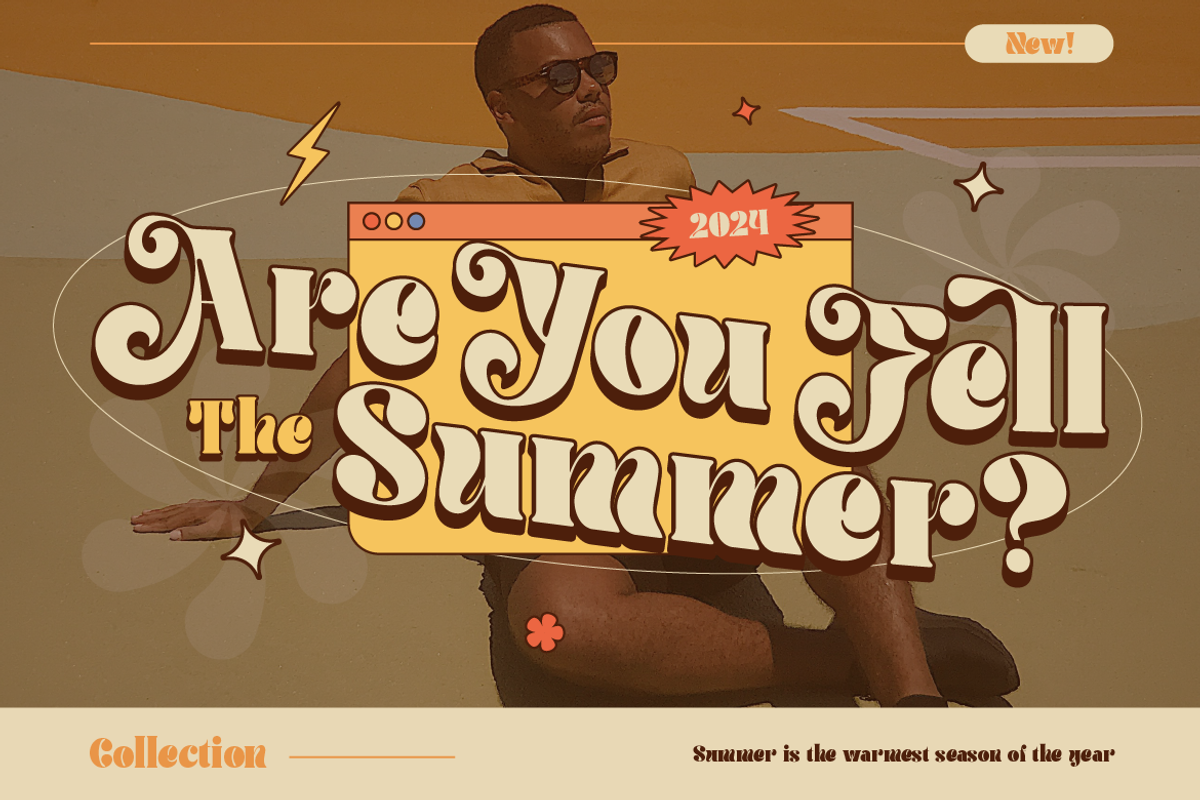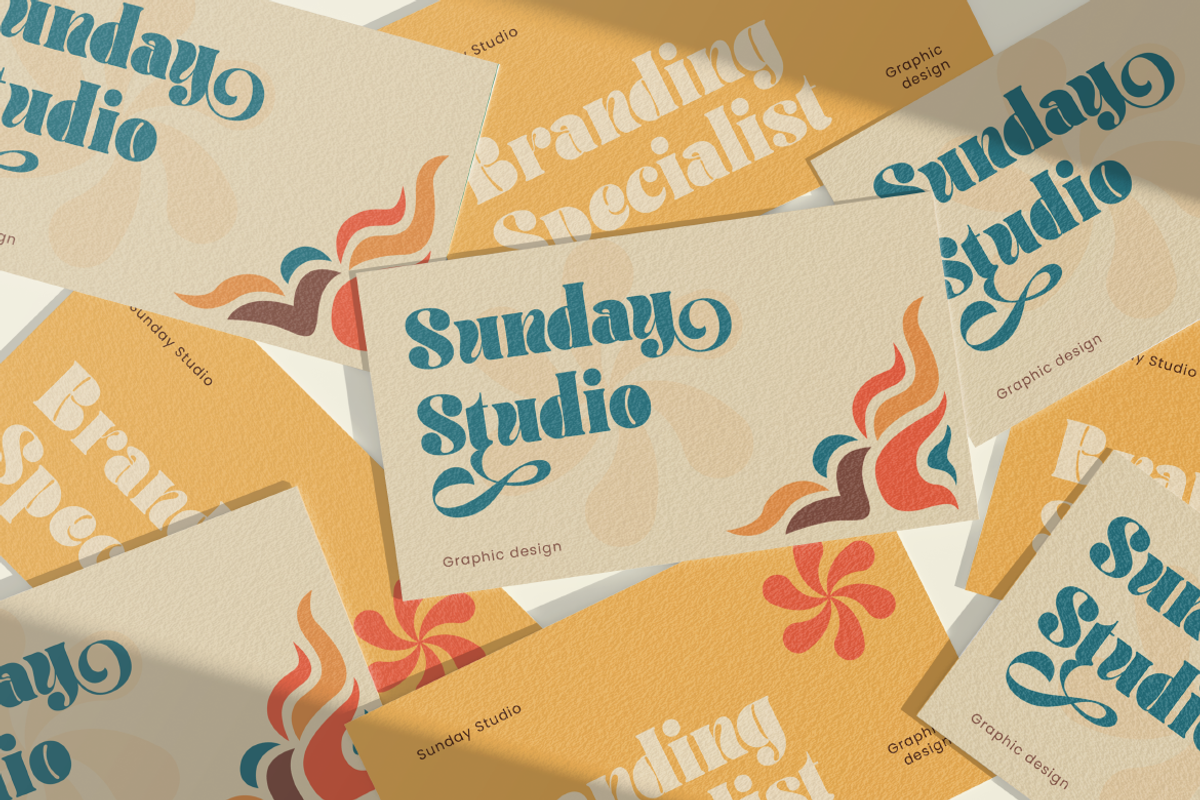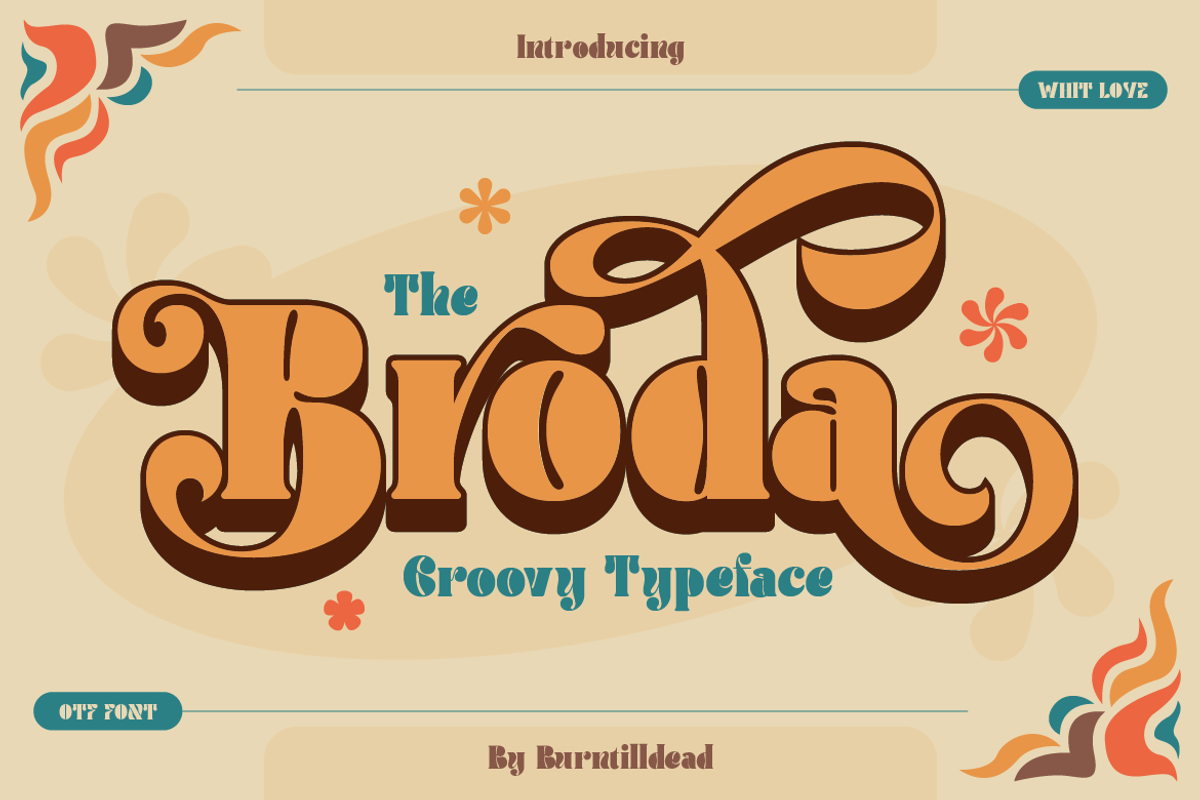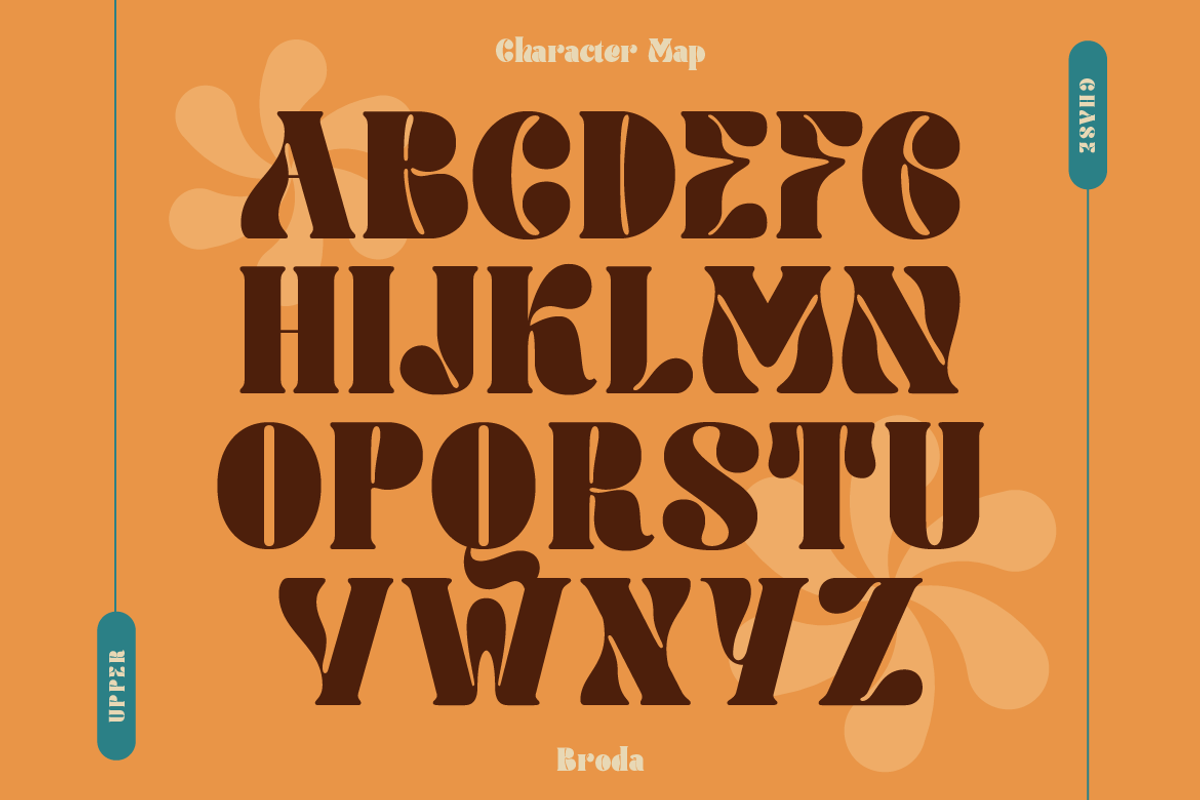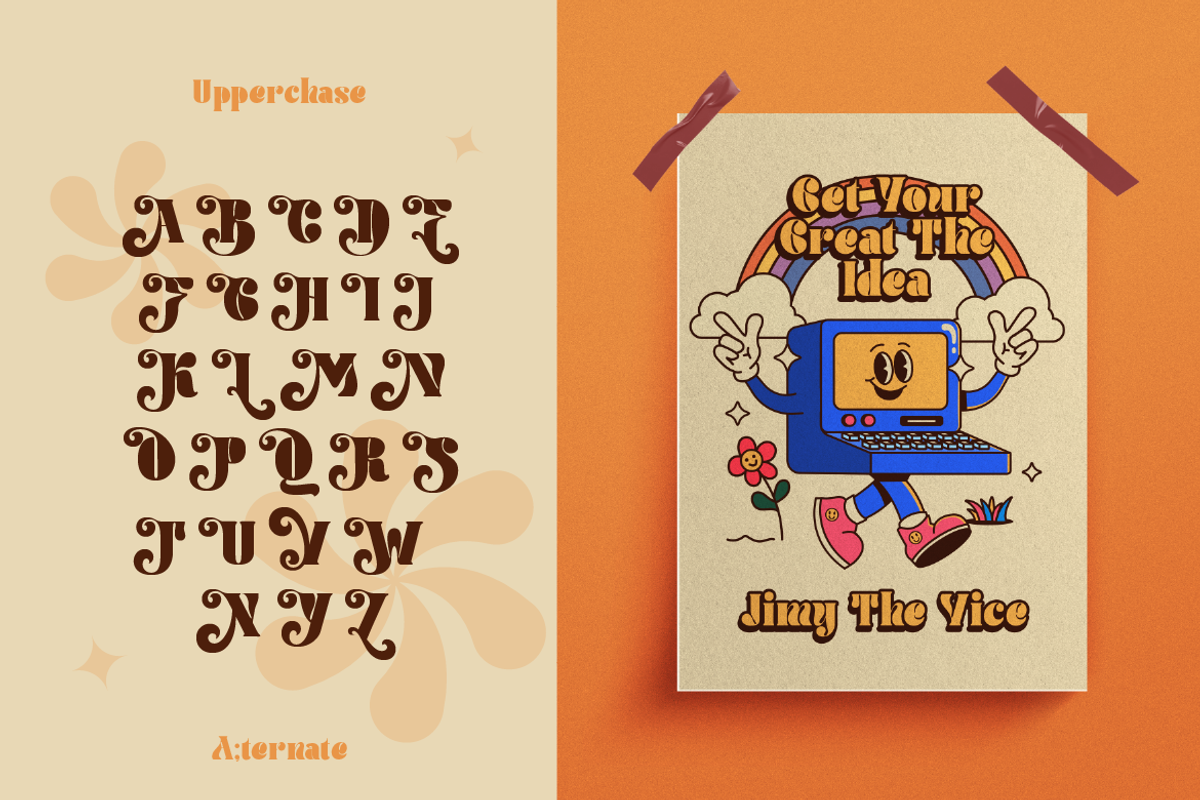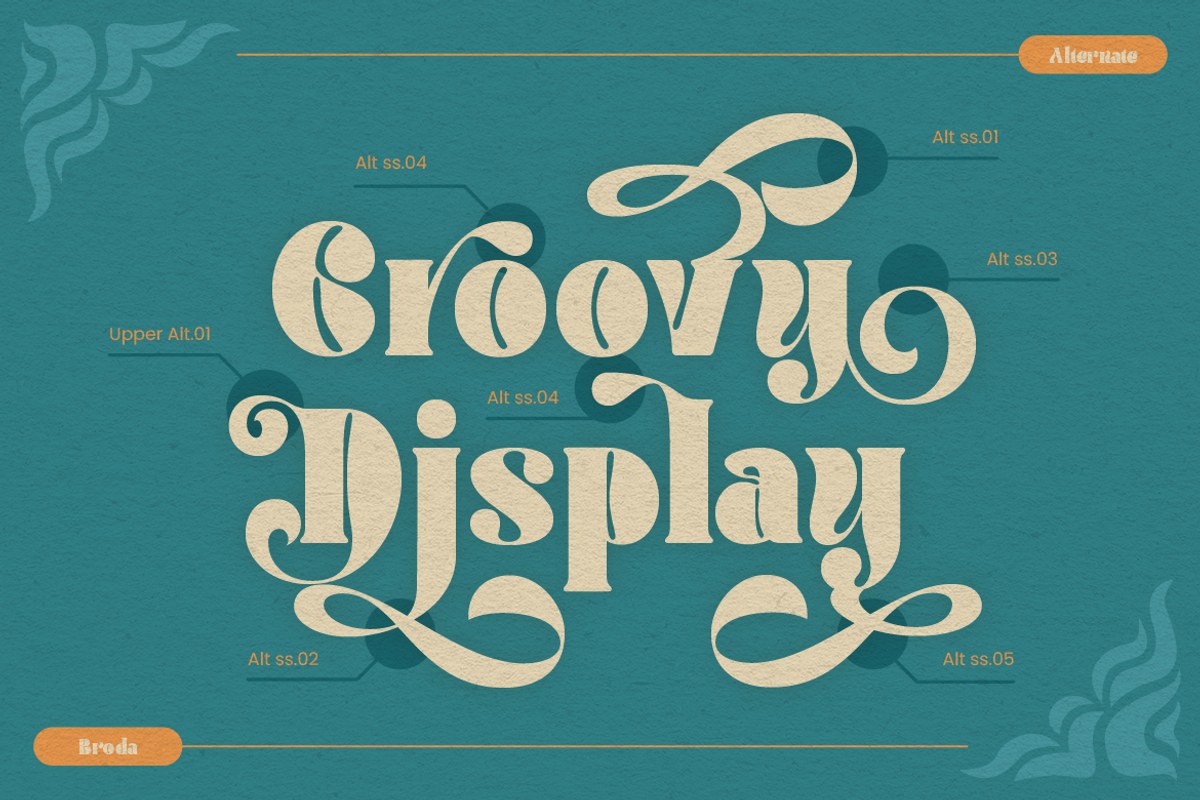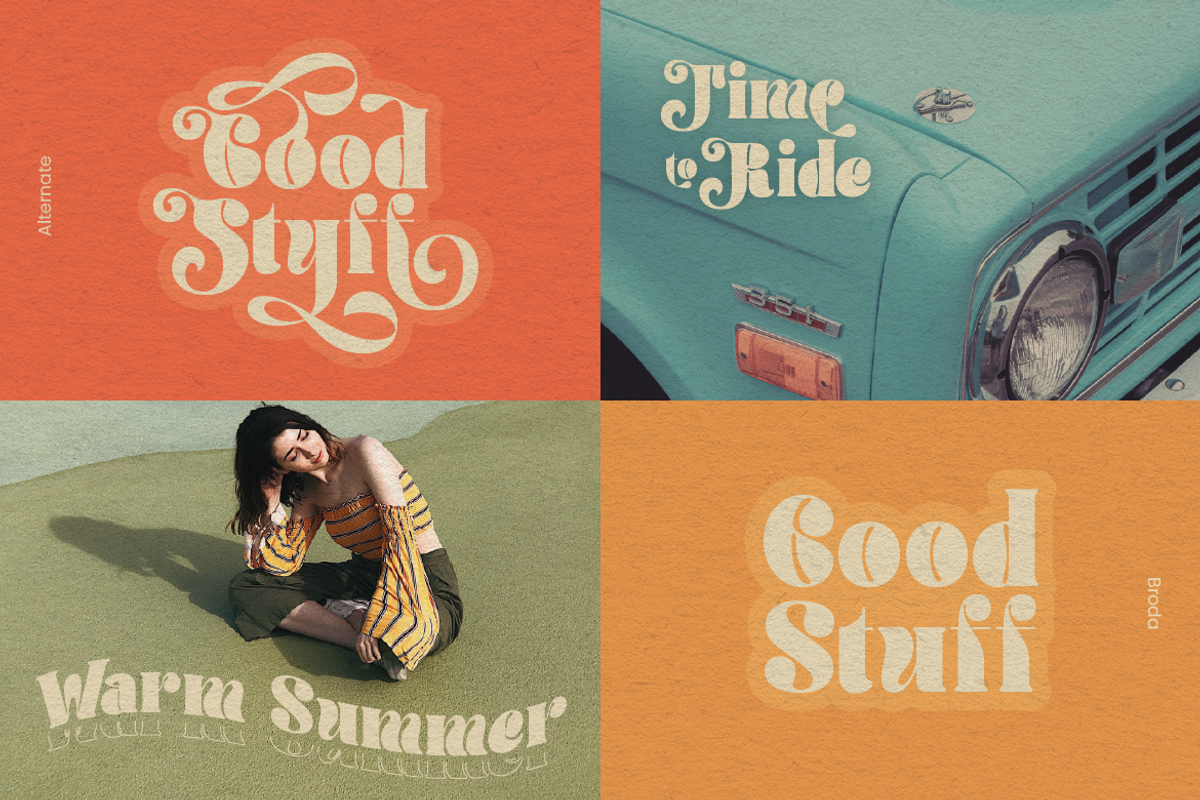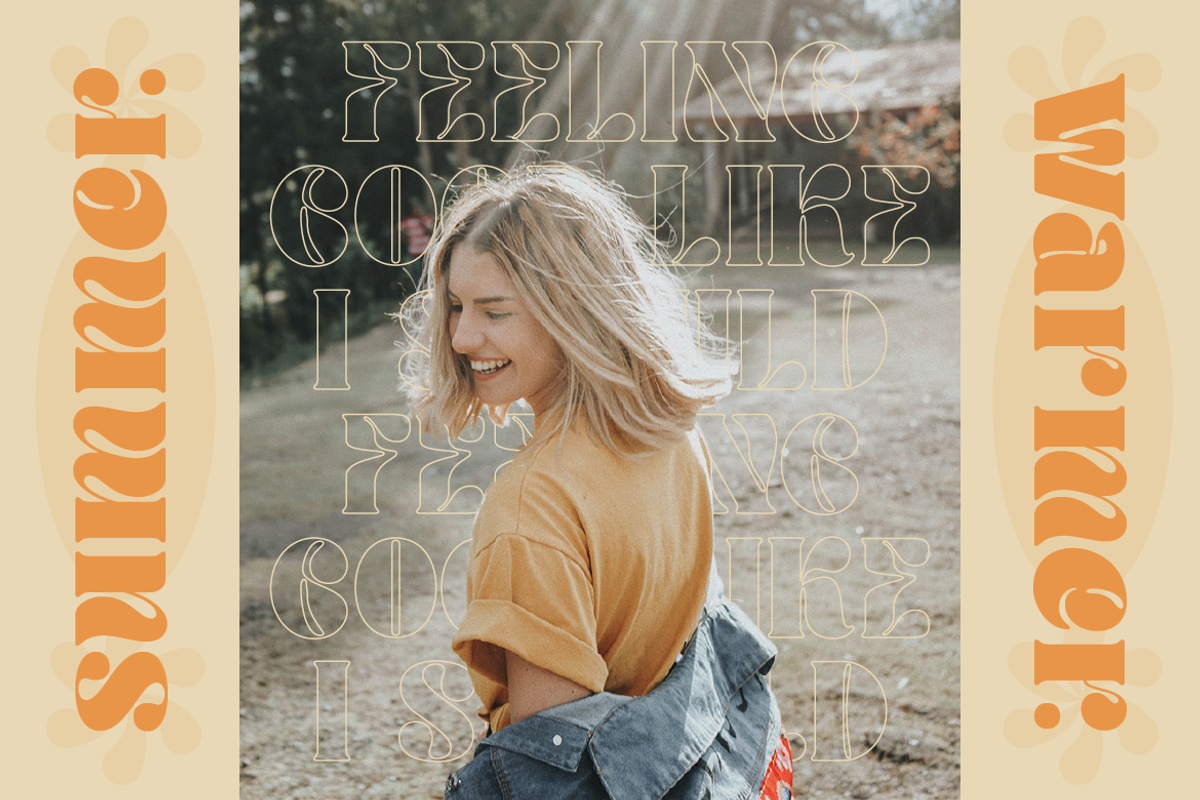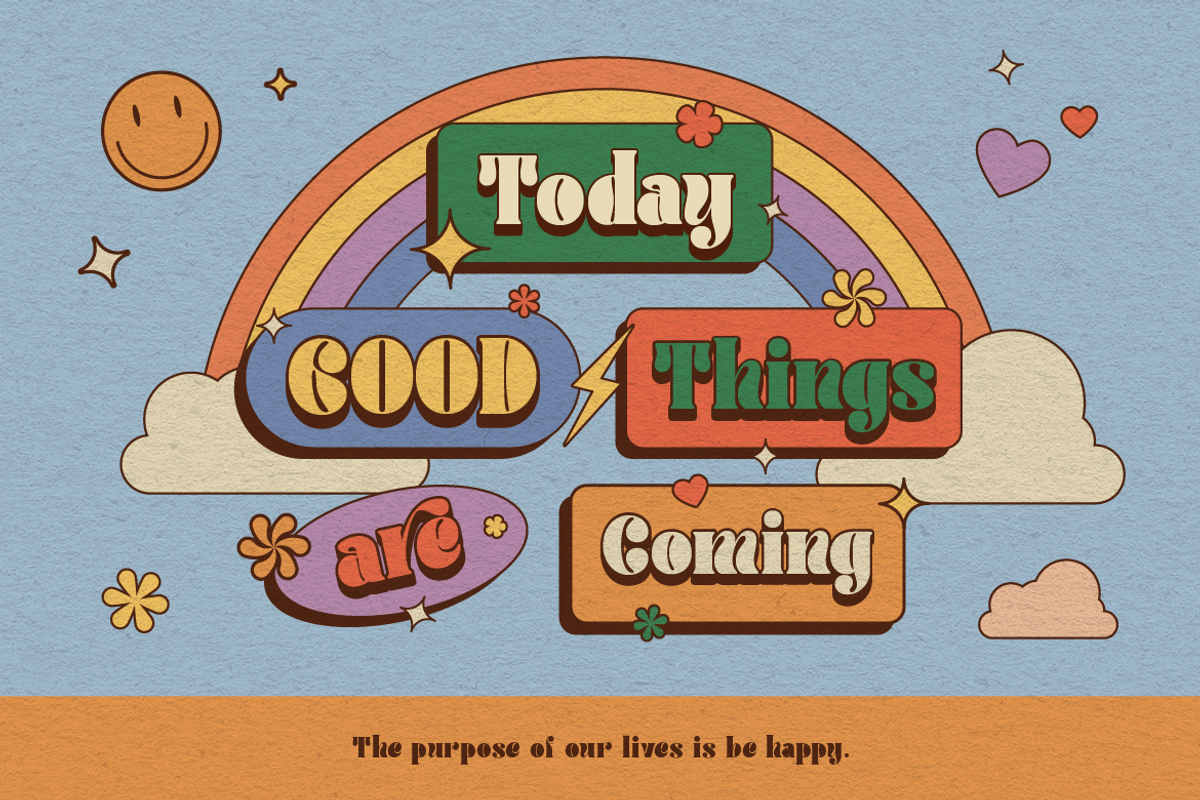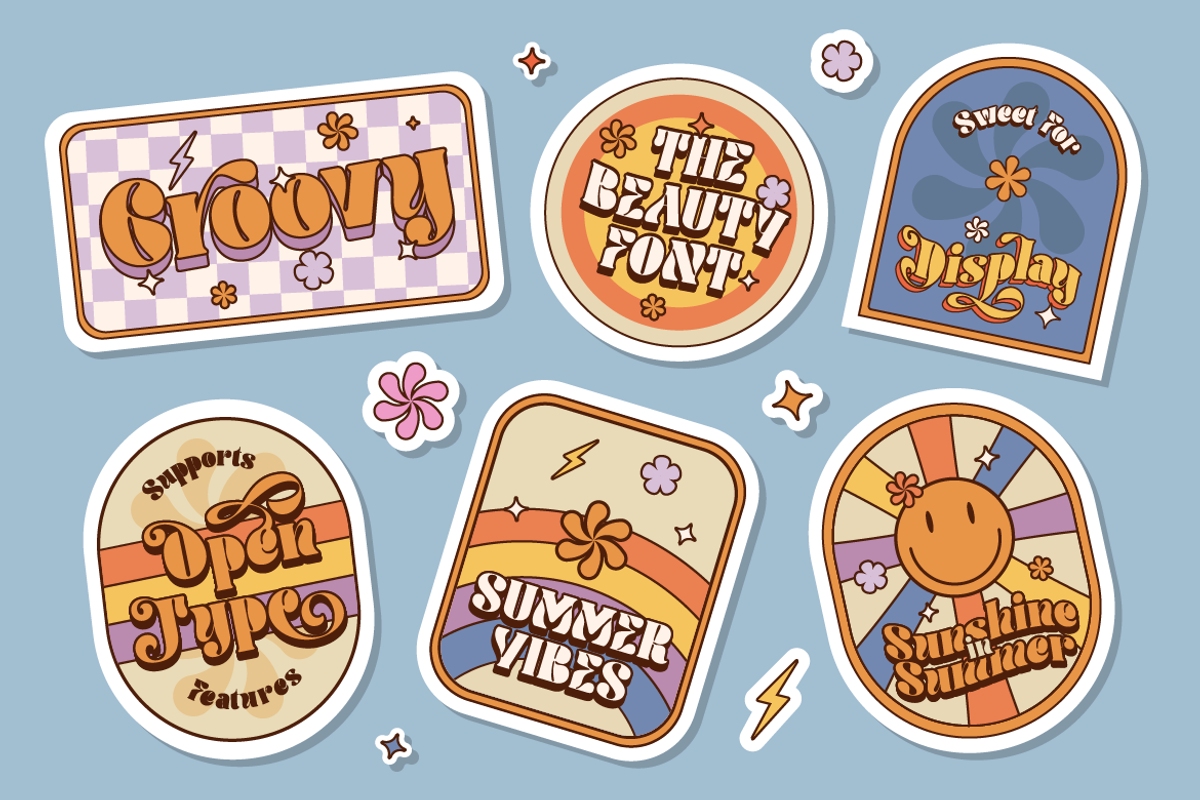
Broda
Let's groove back to the funky beats of the past with Broda retro typeface! Its thick curves and playful strokes add a groovy and timeless classic touch yet aesthetic to any project design, taking you on a nostalgic trip to the swinging 60s and 70s. Get ready to unleash your inner hippie and spread some retro vibes in modern era!
Broda is a great choice for any design project such as logos, covers, posters, quotes, magazine, product packaging, merchandise, social media, marketing materials and many more! This font have extrude style to make your design steal the attention.